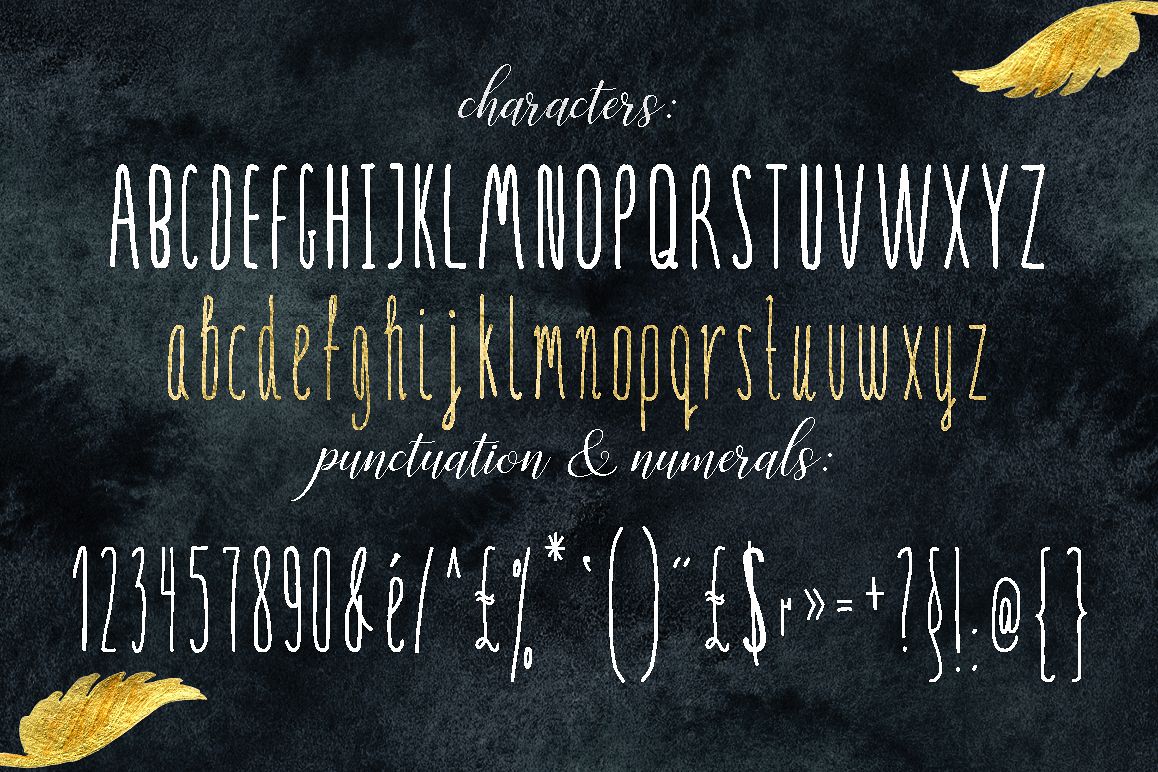
SERENA gold. Font
Serena gold
The handwritten font SERENAgold . This is generic, readable handwritten font, will works well in every kind of design.It looks fantastic for branding, logos, and websites as well!